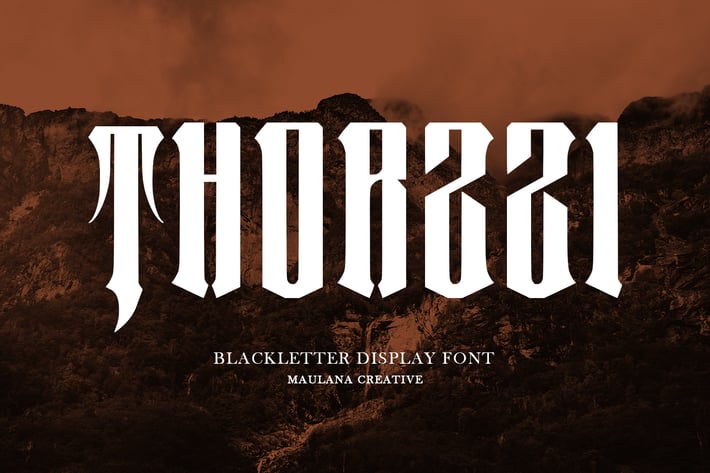
Thorzzi Blackletter Display Font
Thorzzi blackletter display font. Heavy stroke, vintage character with alternates. To give you an extra creative work. Thorzzi display font support multilingual language. This font is good for logo design, Social media, Movie Titles, Books Titles, a short text even a long text letter and good for your secondary text font with script or serif. Make a stunning work with Thorzzi font.